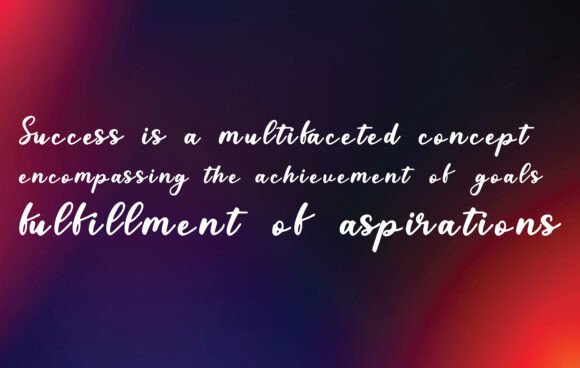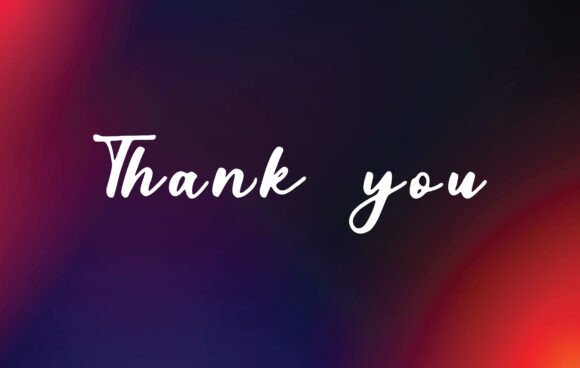
Introducing Coreopsis Font: Elevate Your Creative Projects with Elegance
Are you on the hunt for a font that can add a touch of sophistication and elegance to your creative projects? Look no further than Coreopsis Font, a stunning handwritten font that is sure to take your designs to the next level. With its beautiful, flowing script and versatile style, Coreopsis Font is the perfect choice for designers, crafters, and anyone looking to add a personal touch to their work.
The Beauty of Coreopsis Font
Coreopsis Font is a lovely and beautiful handwritten font that boasts a unique, elegant style that is sure to capture the attention of your audience. Its flowing script and delicate lines make it perfect for creating eye-catching logos, branding, and quotes that will leave a lasting impression. Whether you’re working on a personal project or a client’s, Coreopsis Font is the perfect choice for adding a touch of sophistication and style.
Why Choose Coreopsis Font?
So, what sets Coreopsis Font apart from other fonts on the market? Here are just a few reasons why this font is a cut above the rest:
- Unique and Elegant Style: Coreopsis Font boasts a unique, elegant style that is sure to add a touch of sophistication to any project.
- Versatile: This font is perfect for a wide range of projects, from logos and branding to quotes and more.
- Easy to Read: Despite its elegant style, Coreopsis Font is easy to read, making it perfect for use in body text or headlines.
- High-Quality: This font is designed with high-quality in mind, ensuring that it will look great in any project.
Uses for Coreopsis Font
So, what can you use Coreopsis Font for? The possibilities are endless! Here are a few ideas to get you started:
- Logos and Branding: Create a stunning logo or brand identity with Coreopsis Font that will help you stand out from the competition.
- Quotes and Posters: Add a touch of elegance to your quotes and posters with Coreopsis Font.
- Web Design: Use Coreopsis Font to add a personal touch to your website or blog.
- Stationery and Invitations: Create beautiful stationery and invitations with Coreopsis Font that will make a lasting impression.
Tips for Using Coreopsis Font
Here are a few tips for getting the most out of Coreopsis Font:
- Use it Sparingly: While Coreopsis Font is beautiful, it can be overwhelming if used too much. Use it sparingly to add a touch of elegance to your project.
- Pair it with Other Fonts: Coreopsis Font pairs well with a variety of other fonts. Experiment with different pairings to find the one that works best for your project.
- Experiment with Colors: Coreopsis Font looks great in a variety of colors. Experiment with different colors to find the one that works best for your project.